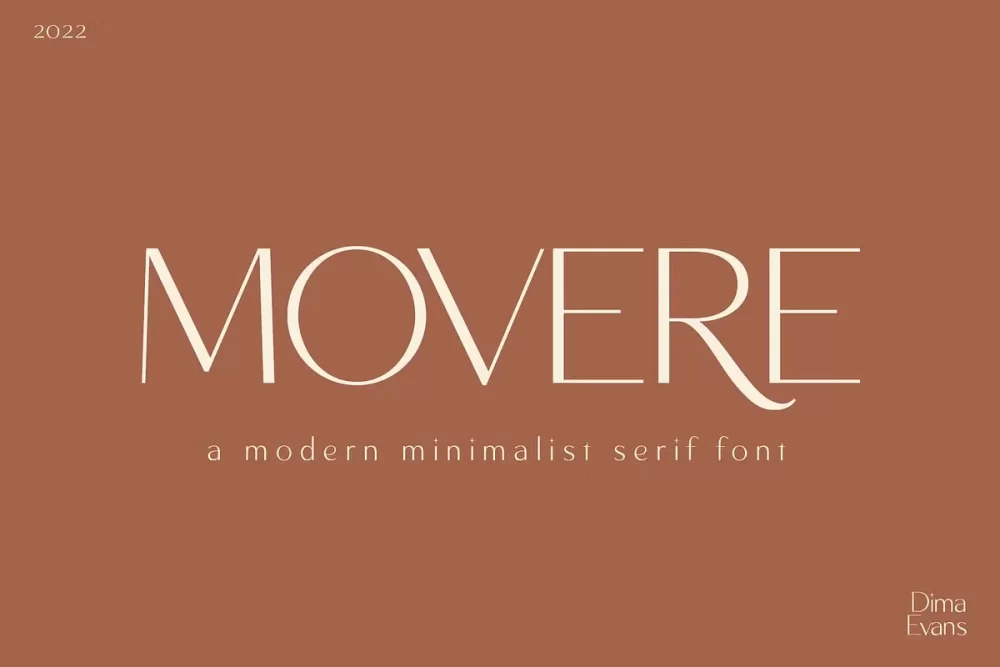
Movere is a modern serif font family with a vintage charm. It has a fashionable appearance with a touch of retro style. It can be used for various design projects, including wedding invitations, logos, and more. The font is an open type with clean shapes and precise kerning. It includes ligatures encoded by the PUA. Language support: All European languages.